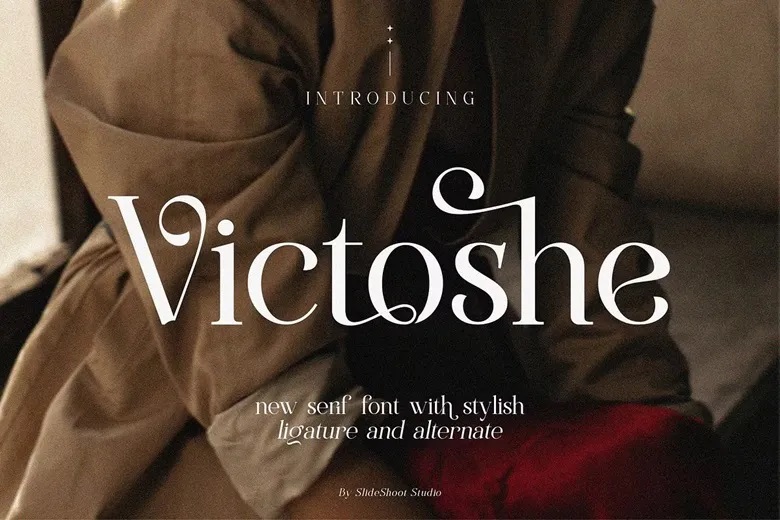
Victoshe Font
Victoshe is a modern serif font for all branding and logo designs that will perfectly suit your needs. This is a very new and elegant serif font that has some great character. This font is ideal for invitation cards, stylish logos, awesome movie titles, movie names, business cards, book titles, brand names and any other design works.
Victoshe is a smooth serif font that has elegance and the moment written all over it. This font has some stylish alternations and ligatures that make this font a great companion to any project.
Victoshe Serif Font